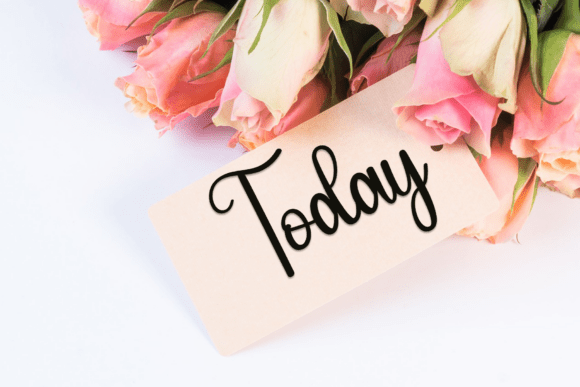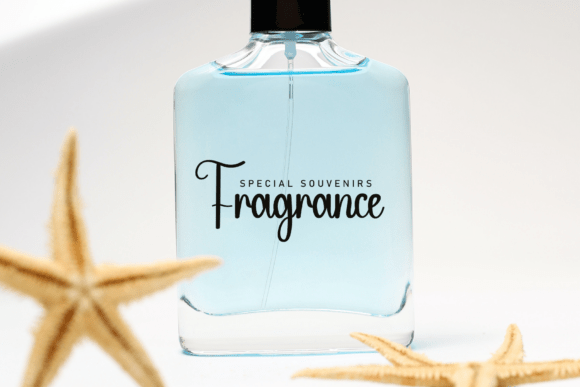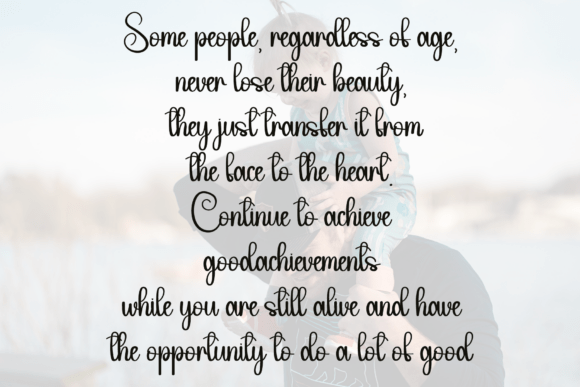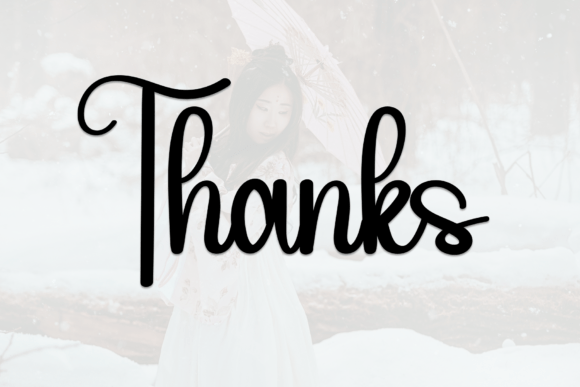
Introduction to Snow Princess Font
Remember that moment when you’re working on a creative project, and you need that perfect font to elevate your design? It’s the moment when the entire look comes together, and your audience is captivated. For many designers, that moment often involves discovering a high-quality font that brings their vision to life.
That’s where the Snow Princess Font comes in – a stylish script font that exudes elegance and contemporary charm. Its fluid curves and carefully crafted letterforms capture the beauty of hand-drawn calligraphy with a modern twist, making it an ideal design resource for logos, invitations, packaging, and social media graphics.
Whether you’re looking for a free download or a versatile font for your next design project, the Snow Princess Font is a valuable addition to your collection, offering a refined and sophisticated touch that’s sure to impress. With its natural flow and polished details, it’s no wonder this font has become a go-to choice for designers seeking to add a touch of sophistication to their work.
Key Features of Snow Princess Font
- High-quality, elegant script font perfect for creative projects and design resources.
- Features a transparent background, allowing for easy layering and customization in design projects.
- Designed with a delicate, cursive style that adds a touch of sophistication and elegance to any design project.
Honest Review: Snow Princess Font
I recently stumbled upon the Snow Princess Font, and I must say it’s a lovely addition to any creative project. The font’s delicate and elegant design makes it perfect for projects that require a touch of whimsy.
- What works well: ✨ The font’s high quality and crisp lines make it ideal for digital use, and the transparent background allows for seamless integration into any design.
- What works well: ✨ The font’s versatility makes it suitable for a wide range of creative projects, from invitations to digital signage.
- ⚠️ The font may not be suitable for projects that require bold or dramatic typography, as it’s quite delicate and may get lost in bold text.
Overall, I’m impressed with the Snow Princess Font’s design and versatility. While it may have a few limitations, it’s a great resource for designers looking to add a touch of elegance to their projects.
Tips for Getting the Most Out of Snow Princess Font
To get the most out of the Snow Princess Font, use it in conjunction with a high quality image with a transparent background. Experiment with different font sizes and styles to create a visually appealing design. You can also use the font in combination with other design elements, such as shapes and images, to add depth and interest to your design.
Common Use Cases for Snow Princess Font
The Snow Princess Font is perfect for a variety of creative projects, including winter-themed invitations, social media graphics, and presentations. It’s also a great choice for designers looking for a high quality, free download font to add to their design resource library.
Q: Is the Snow Princess Font suitable for large-scale design projects?
Yes, the Snow Princess Font is a high-quality design resource that can be used for large-scale design projects. Its clean and elegant design makes it perfect for creative projects that require a professional touch. Additionally, its high-quality design ensures that it will scale well, even in large formats.